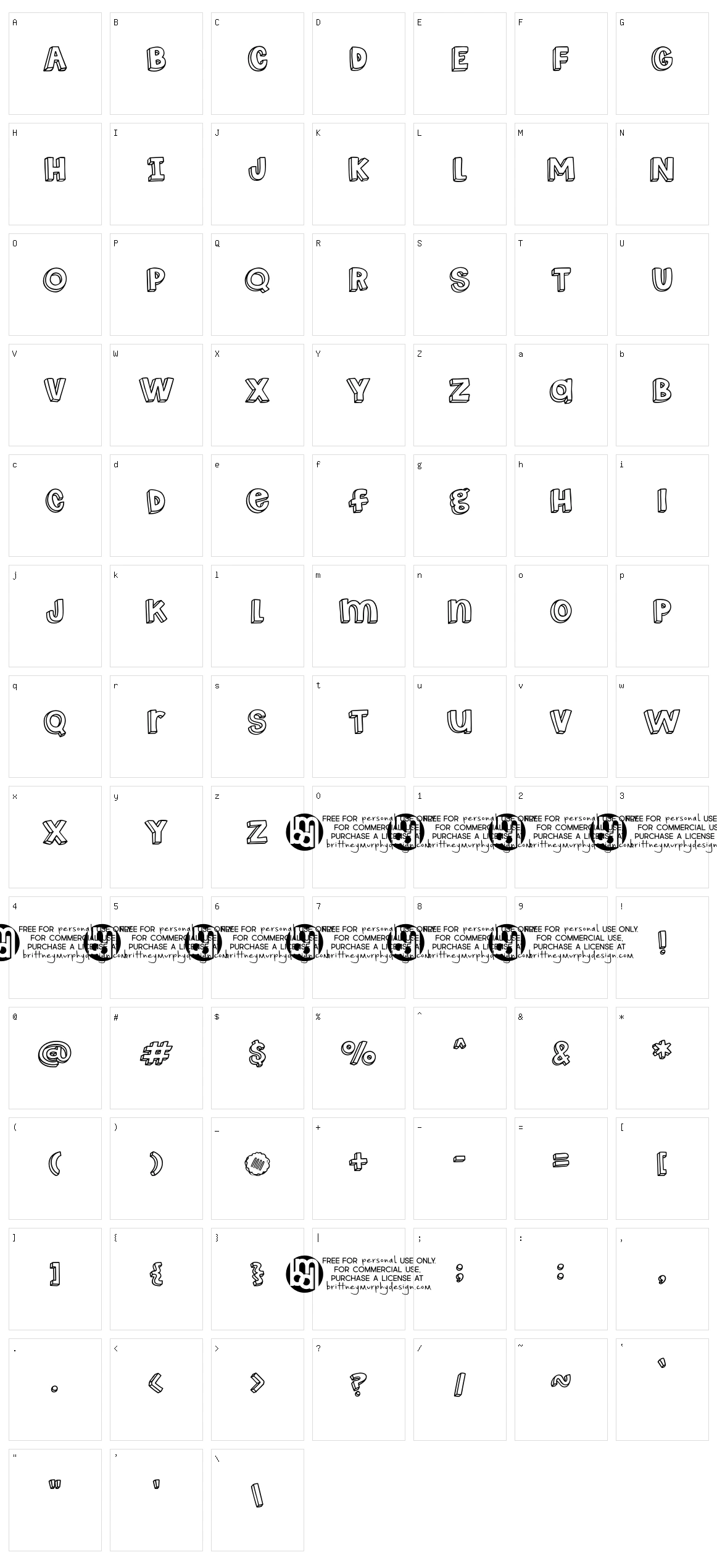
The free font Shortbread Cookies is carefully designed by Brittney Murphy Design, showcasing a thoughtful balance of creativity and usability and falls under the Cartoon font style. When you download the ZIP file, it contains only 273.25 KB of font files, making it lightweight and quick to download. Please review the license details below to understand permitted usage and distribution rights. If license information is not available, we recommend using this font for personal projects only or contacting the author directly for commercial usage permissions.